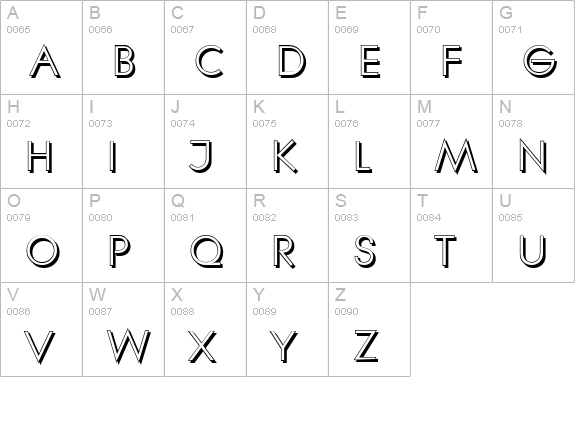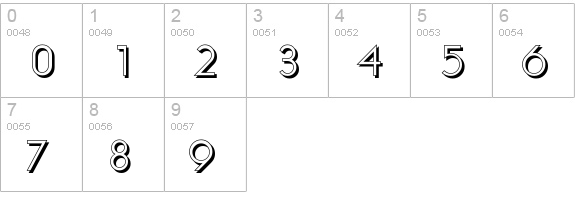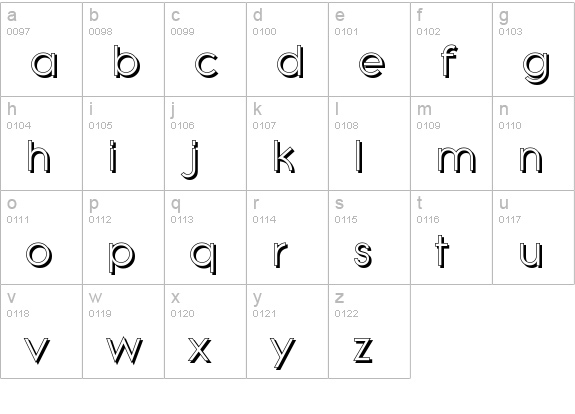
LiteraShadow-Regular is the standard, neutral variant in the LiteraShadow typeface family \xE2\x80\x94 well suited to general body text, paragraphs, and standard typographic work.
The LiteraShadow-Regular font is a modern and sleek typeface that adds depth and dimension to your designs. With its unique shadow effect, this font is perfect for creating eye-catching headers, titles, and logos. The sharp lines and bold presence of LiteraShadow-Regular make it a versatile choice for both print and digital projects. Best of all, LiteraShadow-Regular is available for free download at FontsMarket.com. This means you can easily access this stylish font and enhance your designs without any cost. Whether you're working on a personal project or a professional assignment, LiteraShadow-Regular is a fantastic addition to your font collection. Download it today and start creating stunning visuals with this one-of-a-kind typeface.